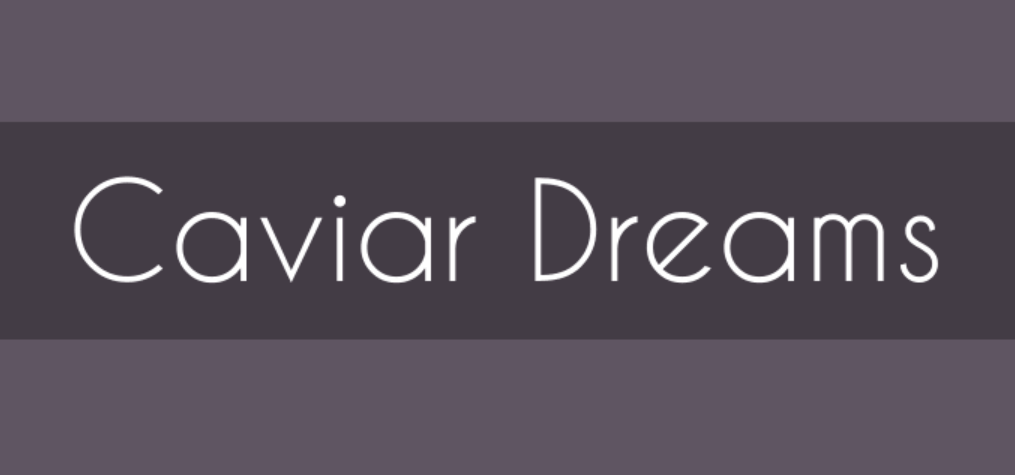
Caviar Dreams Font Family is a clean Sans-serif typeface family that was created by Lauren Thompson on 2 July and 2009. This typeface is an extraordinary font that contains 268 unique glyphs including Lowercase and Uppercase alphabets and numbers, symbols, and some special characters.
This font family comprises a complete 4 font weights that are Bold, Italic, BoldItalic, which are very suitable for any type of design task. It has massive language support and has been used by the world’s designers and got satisfied by the utilization of this gorgeous typeface.
Caviar Dreams Font